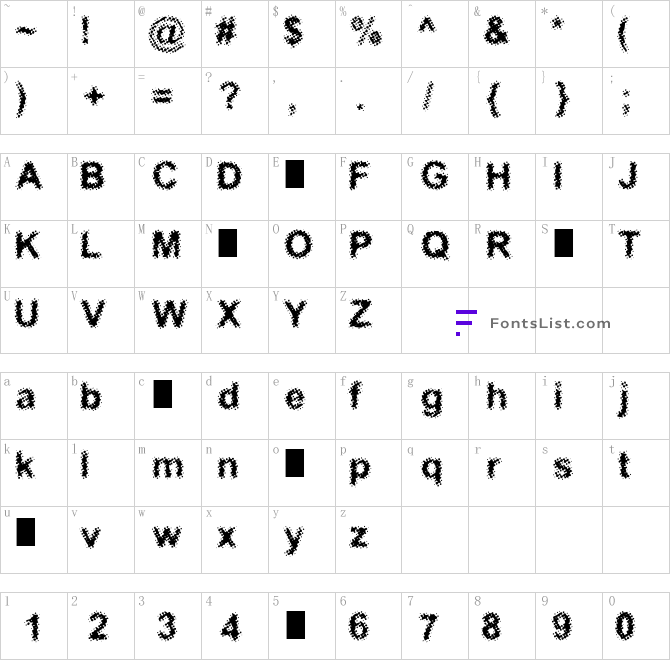
- Font Name:ACTRIAL
- Subfamily:MIEH:Acidic
- Full Name:ACTRIAL
ACTRIAL.ttf is a very beautiful artistic font, ACTRIAL.ttf is widely used in the design and printing of various books and pictures,ACTRIAL.ttf has a strong visual impact,ACTRIAL.ttf is a commonly used font in newspapers, magazines and books, and is used in posters, e-commerce Poster design, store design, logo design, font design and other fields.ACTRIAL.